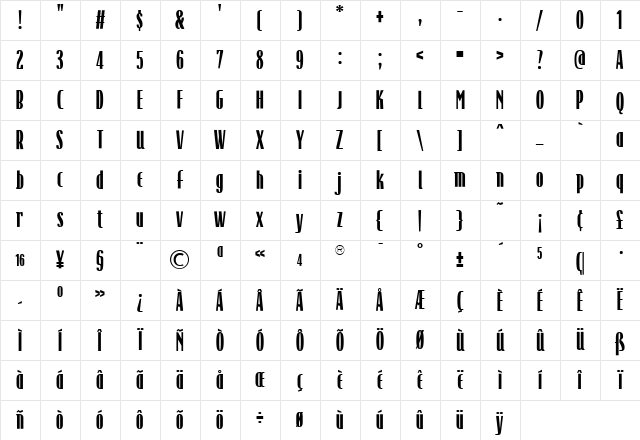
Complete TFRaincheck Regular glyph index. Displaying only characters natively supported by TFRaincheck Regular font.
TFRaincheck is a composed and adaptable typeface that performs quietly and consistently across a wide range of design contexts.